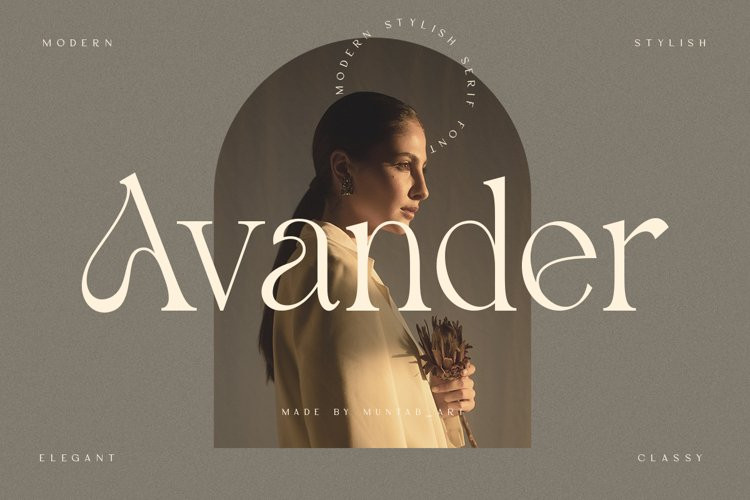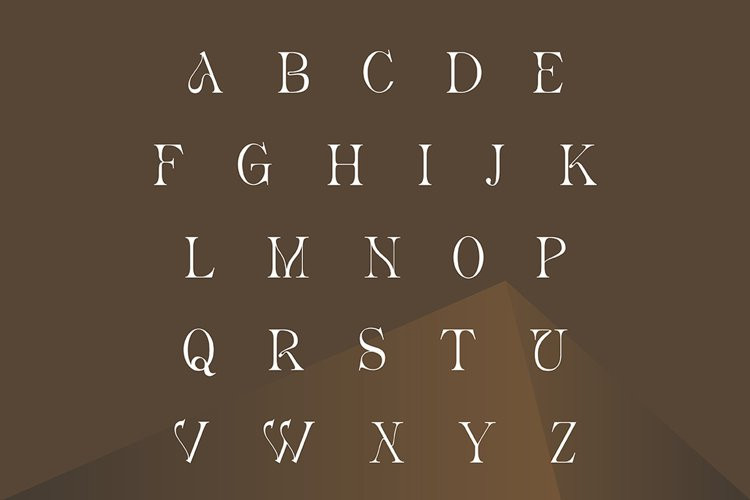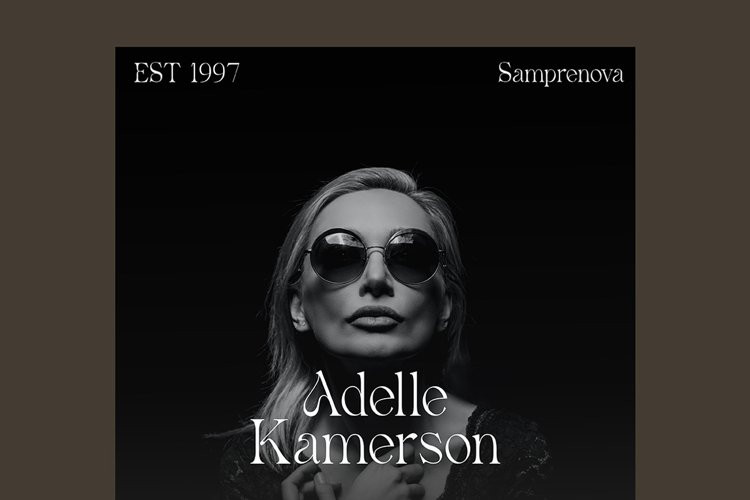
Avander Font
Avander fonts includes uppercase letters, lowercase, numerals, a large range of punctuation. Serif font with modern stylish style. Created for poster, web design, branding, illustrations, badges and some other works.